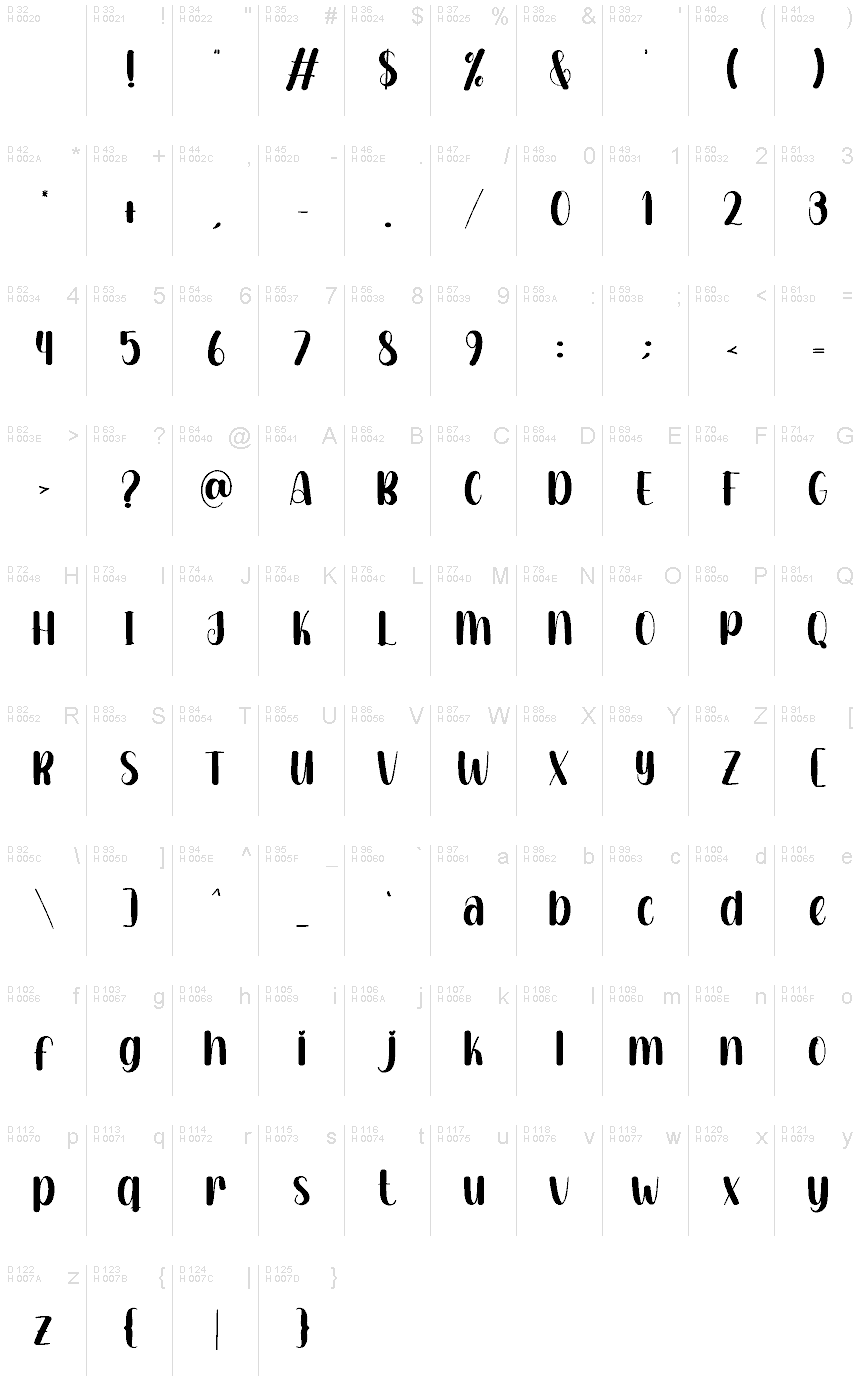
Simple Gift
Simple Gift font is a free brush font by Andi Moz with decorative elements for a whimsical and friendly handwriting style. Its subtly brushed strokes maintain a modern appeal perfect for combining casual themes with artistic designs.
Whether you’re decorating a greeting card or invitation, this versatile typeface is suitable for branding, logos, packaging designs, posters, book covers, stationery items, digital banners, or labels.